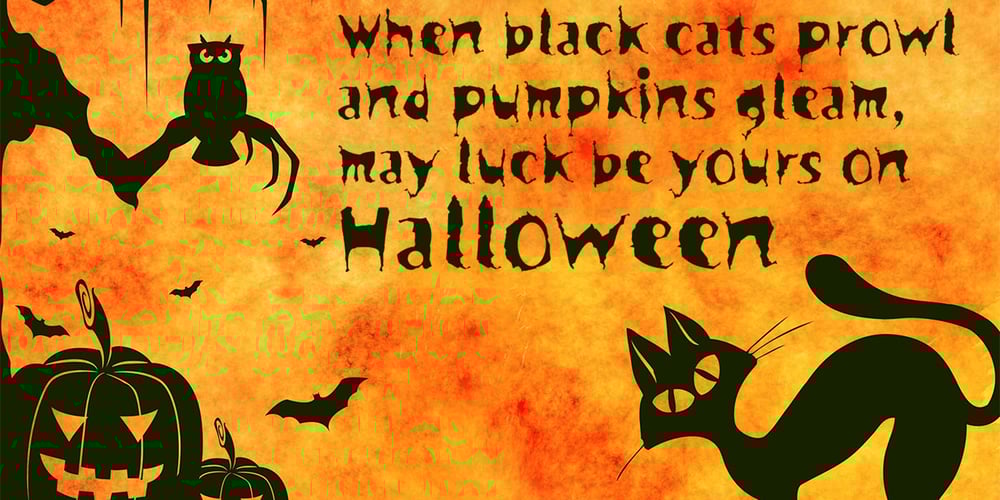
Spooky Font Family was designed by Timothy Donaldson and published by ITC. Spooky contains 2 styles and family package options. The mysterious Spooky, an alphabet to frighten even the bravest, was created by British designer Timothy Donaldson. The figures line themselves up, irregular and with uneven outer contours, and conjure up thoughts of ghosts, bats, vampires and darkness. Spooky is the ideal font for ghost stories with happy endings, a parody on horror and romance. As an added bonus, Spooky includes illustrations, from black cat to spider to witch – everything needed to earn its name.